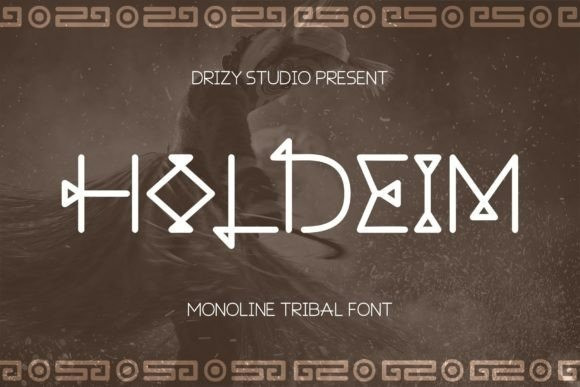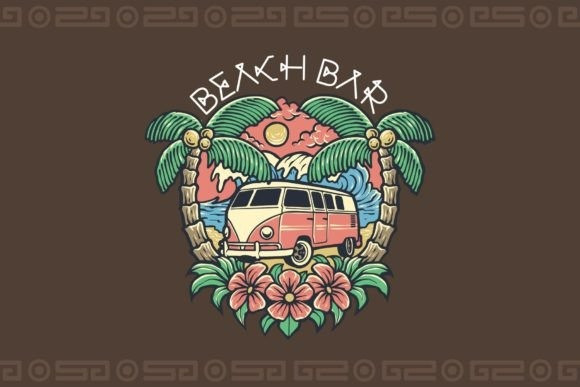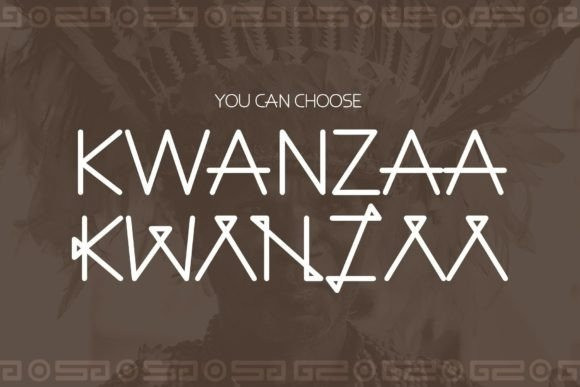
Holdeim Font
Holdeim is a unique and interesting display font. Its tribal character makes it suitable for a large variety of special projects that need an extra ethnic touch.